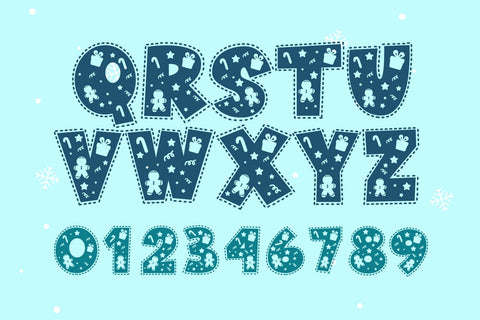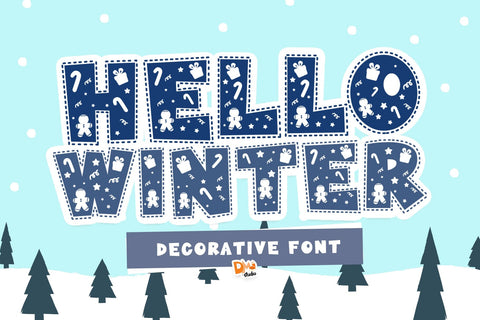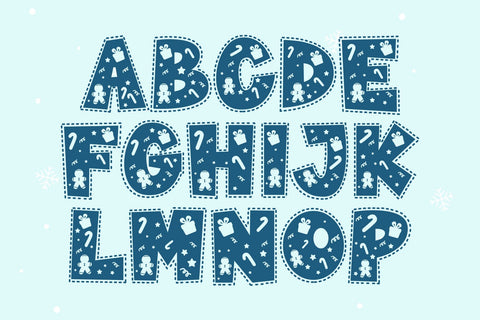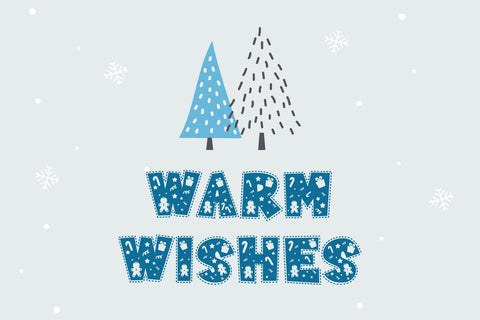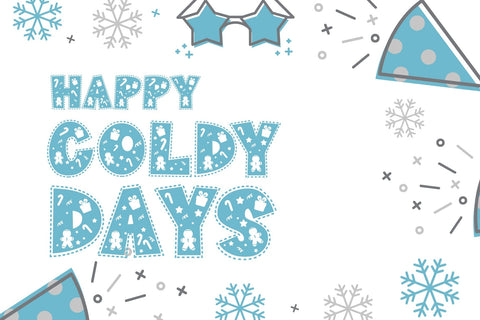
Hello Winter
Hello Winter – Playful & Festive Seasonal Font
Hello Winter is a cheerful and cozy font that captures the magic of the winter season. With its rounded shapes and friendly style, this typeface is perfect for winter-themed crafts, holiday greetings, seasonal branding, warm apparel designs, and more. Its inviting appearance brings a sense of joy and comfort to any project during the chilly months.
Warm & Friendly Style: Rounded and soft letterforms reflect the coziness of wintertime.
Great for Seasonal Designs: Ideal for Christmas cards, winter decor, mugs, sweaters, and festive packaging.
Versatile for Crafts & Branding: Works well in digital designs and physical crafts alike.
Full Character Set: Includes uppercase, lowercase, numbers, punctuation, and multilingual support.